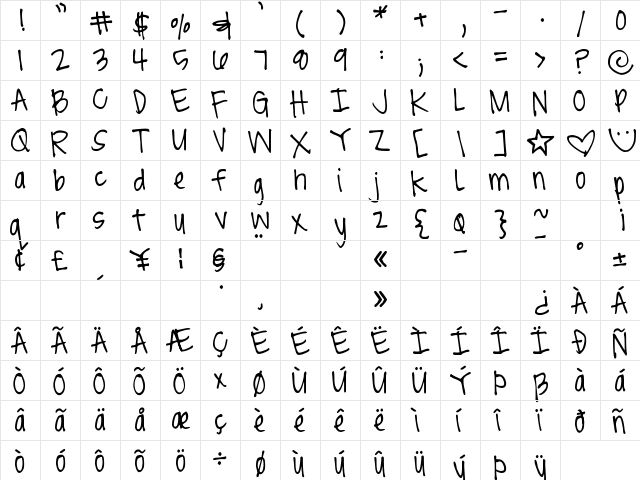
DJB Brit's Thin Pen Regular
Design Context for DJB Brit's Thin Pen Typeface
DJB Brit's Thin Pen takes a measured approach to typography — its balanced proportions and neutral character make it a reliable workhorse for both digital and print work. Its slender proportions lend an understated elegance to any composition.